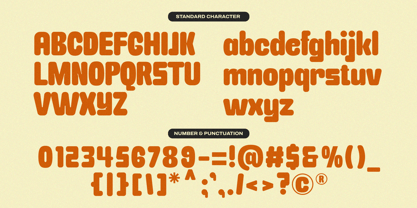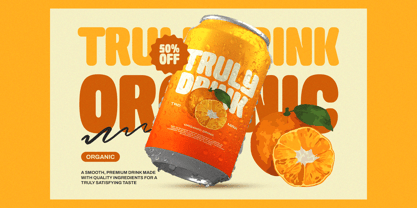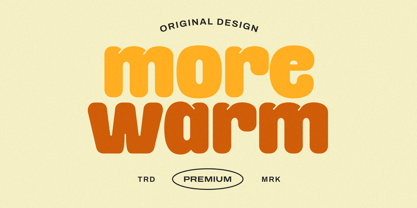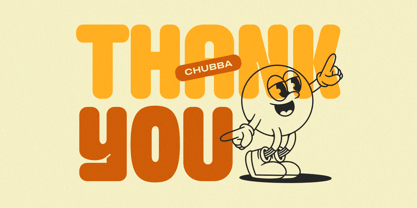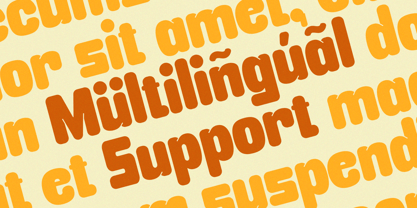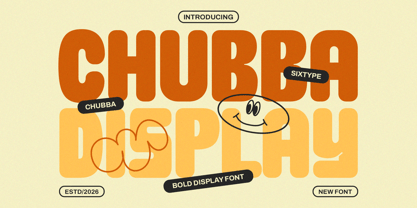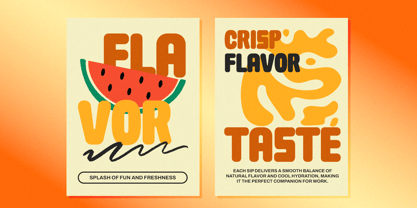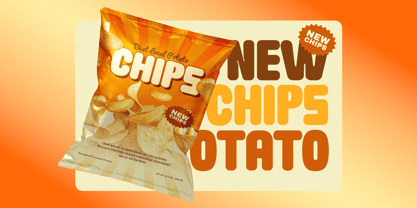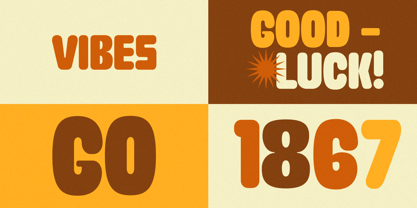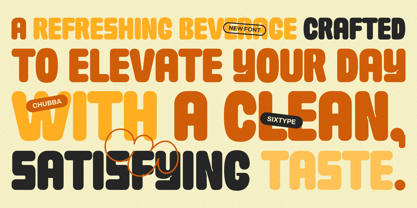
Chubba
by Sixtype Foundry
Chunky Bold Display Font with Playful Energy Chubba is a bold display font characterized by its chunky shapes, rounded corners, and joyful personality. This font is designed to evoke a friendly, expressive, and eye-catching aesthetic, bringing a sense of fun and warmth to any visual composition. With its thick strokes and soft curves, the letters convey confidence while remaining approachable, making Chubba ideal for designs that aim to stand out without appearing harsh. It performs best at large sizes, where its playful character and strong presence truly shine, making it perfect for branding, web design, and editorial projects.